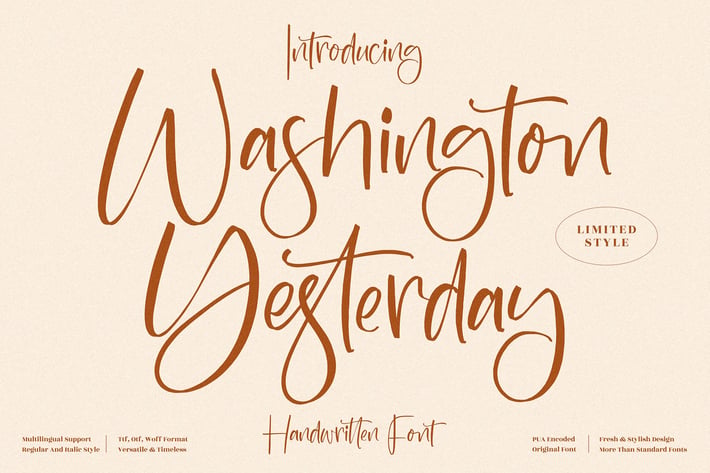
Washington Yesterday Handwritten Font
Washington Yesterday is a timeless handwritten font that combines casual elegance with a natural handwritten touch. Designed to bring warmth and authenticity, this font is perfect for creative projects that need a modern handwritten vibe. Ideal for branding, social media graphics, invitations, and more.
+ Handwritten style with a casual yet elegant flow
+ Multilingual support
+ Regular and italic style included
+ Fresh and stylish design
Bring your words to life with a handwritten touch that feels both personal and professional.